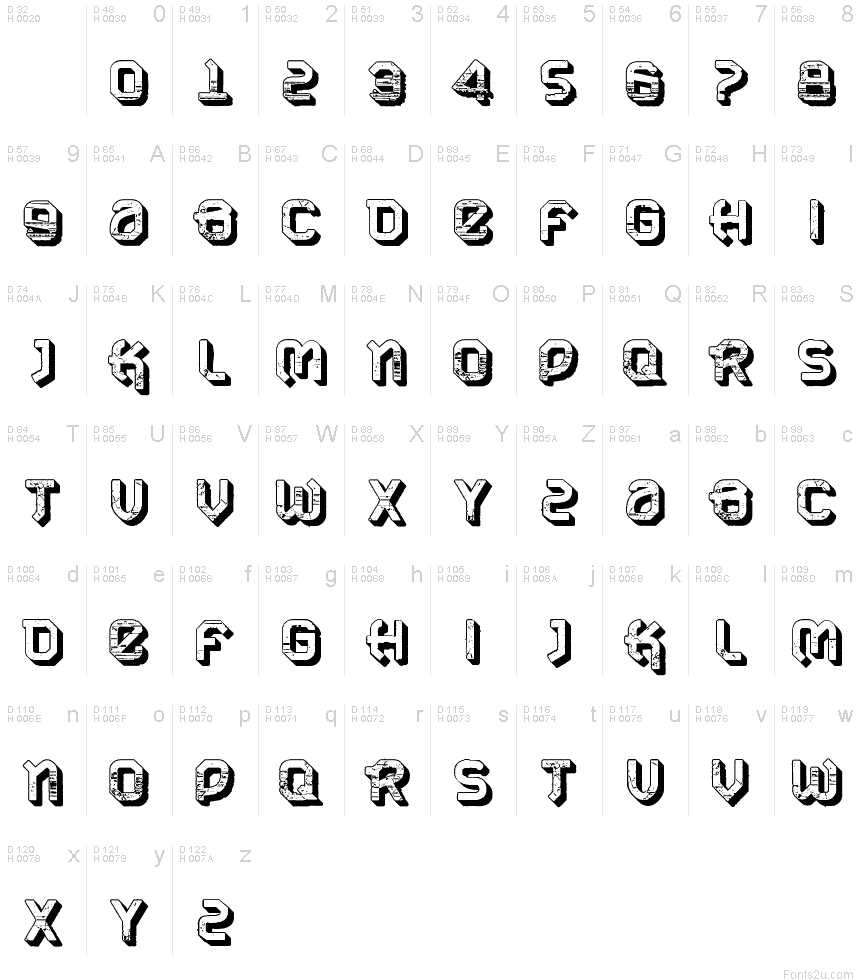
VTKS Urban Time 3D by Douglas Vitkauskas is a free eroded 3D display font built from stout, irregular capitals. Deep offset sides give the lettering a cutout, almost constructed shape. Scrapes, cracks, and worn patches break across the faces and edges.
Streetwear labels and skate audiences are a natural match for its battered, dimensional style. It also suits music posters, game graphics, and merchandise, where the solid silhouettes can take on the look of damaged signage or stamped objects. Against graffiti, concrete photography, or urban illustration, the chipped surfaces let the words become part of the scene rather than a clean layer placed over it.